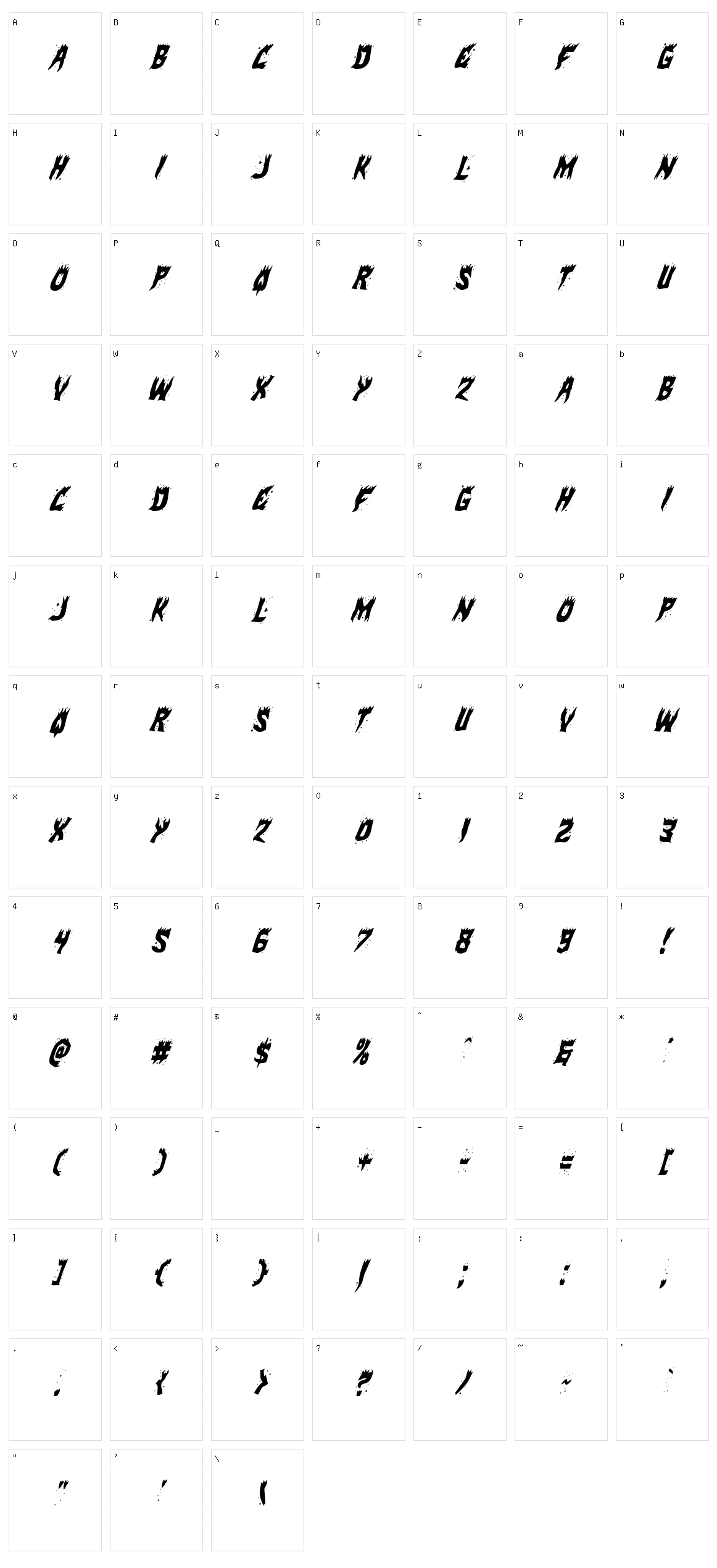
This font comes with the following 12 versions: Regular, Italic, Condensed, Condensed Italic, Expanded, Expanded Italic, Outline, Outline Italic, Staggered, Rotated, Rotalic and Leftalic.